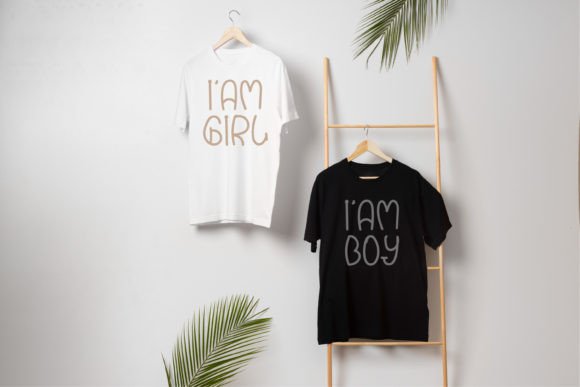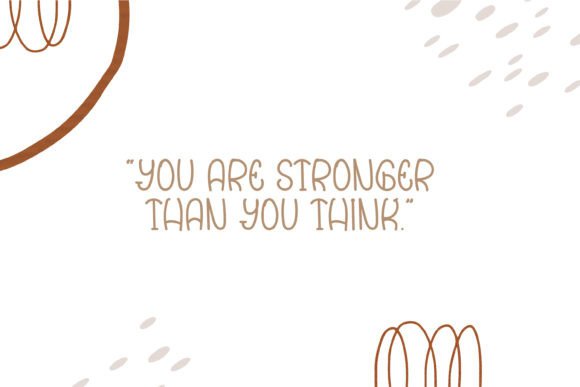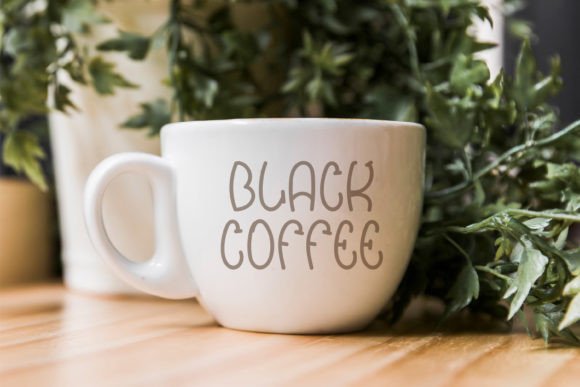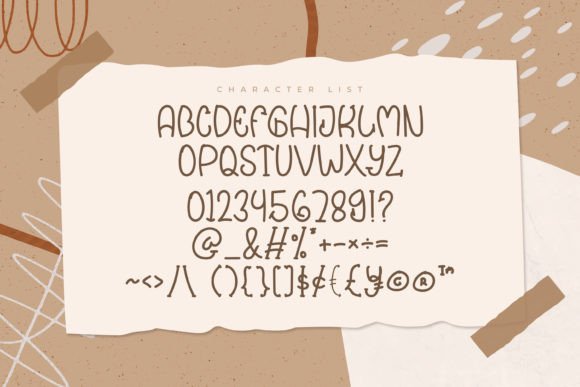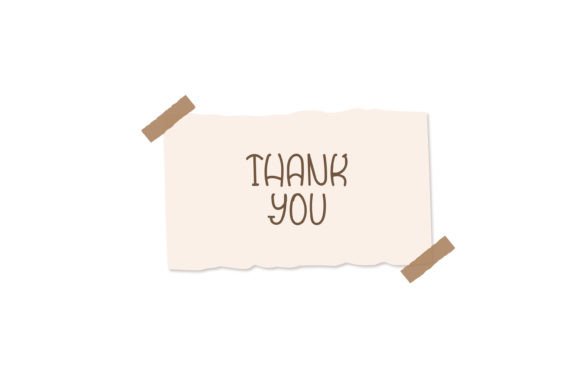
The Quest for the Perfect Font: Discovering Forever Young
I still remember the time I was working on a project for a children’s activity book. I had all the illustrations and content ready, but I was stuck on finding the perfect font. The font had to be playful, cute, and convey a sense of trendiness and authenticity. I tried numerous fonts, but none seemed to fit the bill. That’s when I stumbled upon Forever Young, a display font that embodies all the qualities I was looking for.
A Personal Review of Forever Young
As a designer, I’m always on the lookout for fonts that can help me create engaging and visually appealing projects. Here’s my honest review of Forever Young:
- ✨ Playful and cute design that’s perfect for children’s activities or school projects
- ✅ Trendiness and authenticity that sets it apart from other fonts
- 💡 Highly legible, even at smaller font sizes
- 🎨 Versatile and can be used for a variety of design projects, from posters to digital media
- 🤔 Limited use for body text due to its display font nature
- ⚠️ May not be suitable for formal or professional projects
The Backstory of Forever Young
Forever Young was designed with the intention of creating a font that’s both playful and authentic. The designer wanted to create a font that would capture the spirit of youth and creativity, while also being highly legible and versatile. The result is a font that’s perfect for children’s activities, school projects, and any design project that requires a touch of playfulness.
Q: What is Forever Young font?
A: Forever Young is a playful and cute display font that’s perfect for children’s activities or school projects.
Q: What type of projects is Forever Young suitable for?
A: Forever Young is suitable for a variety of design projects, including children’s activities, school projects, posters, and digital media.